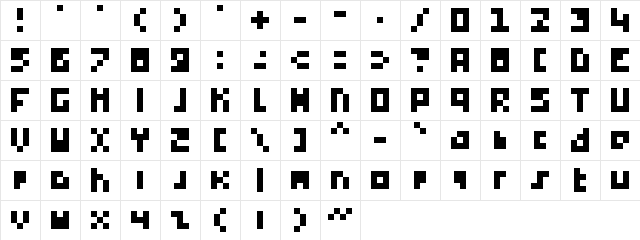
Ikkle 4 Regular
Design Context for Ikkle 4 Typeface
Ikkle 4 is a composed and adaptable typeface that performs quietly and consistently across a wide range of design contexts.
Pro Tip: Pair Ikkle 4 with a font of contrasting weight or personality to build a more expressive typographic hierarchy.